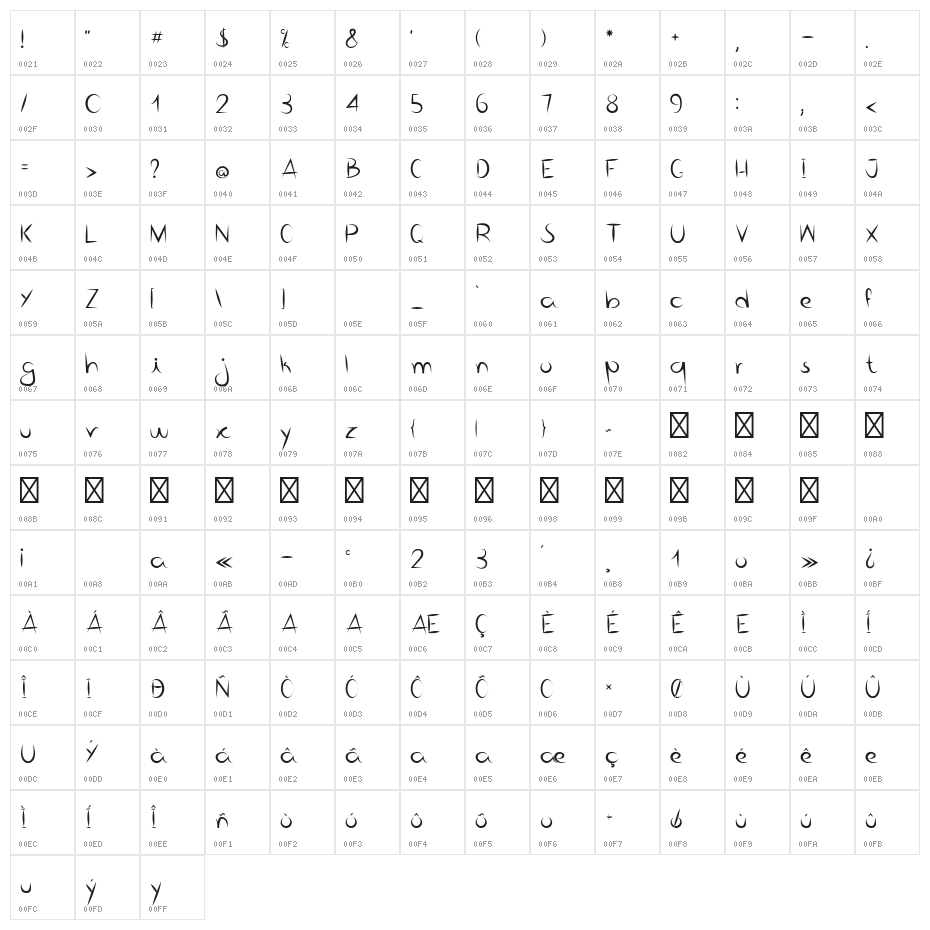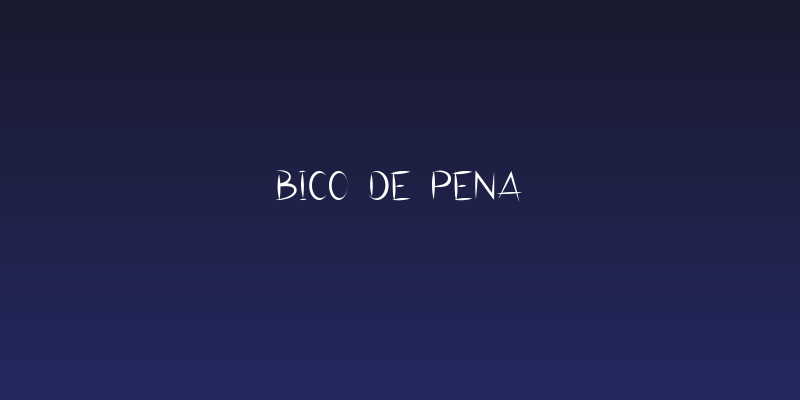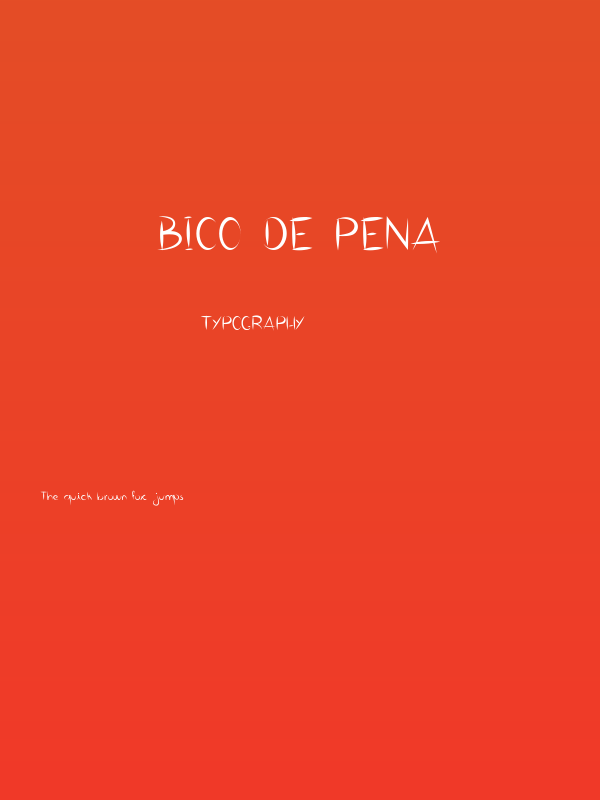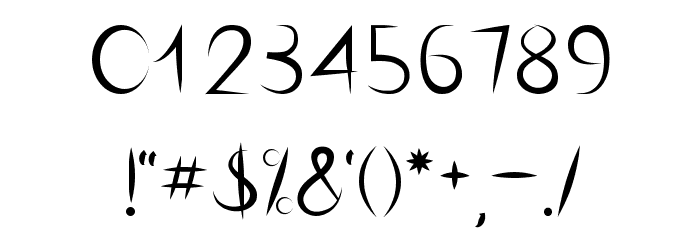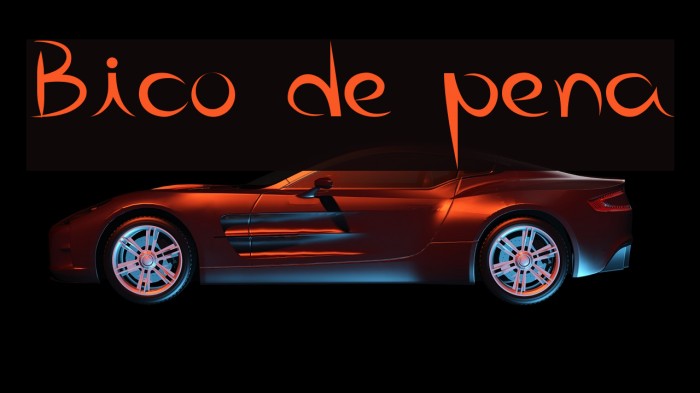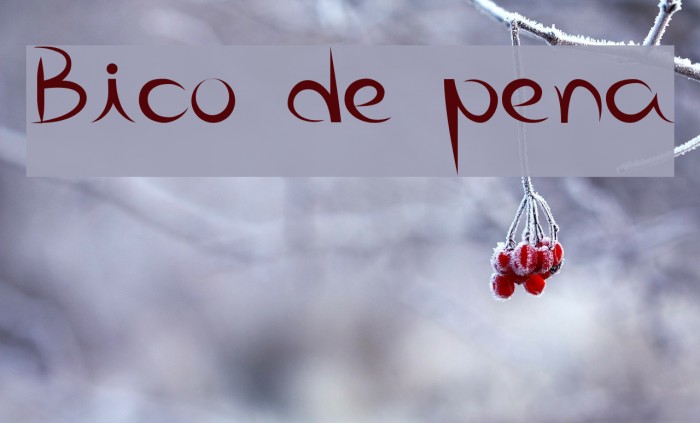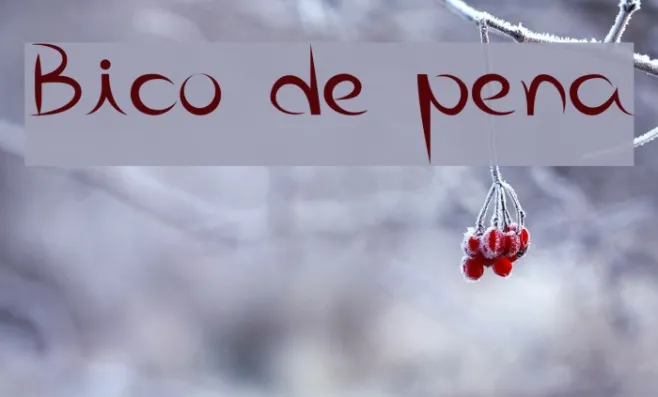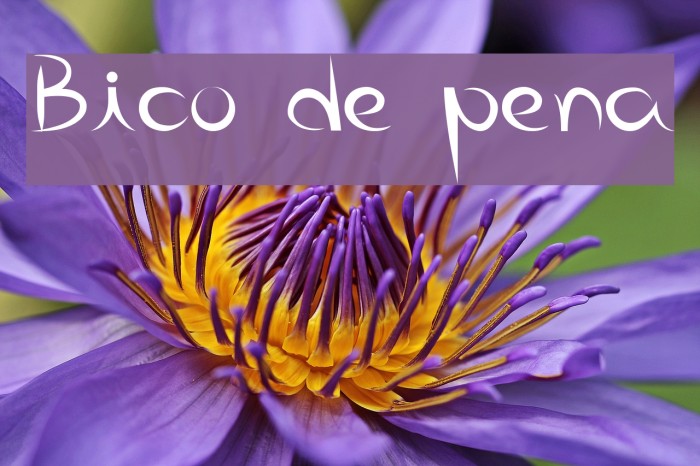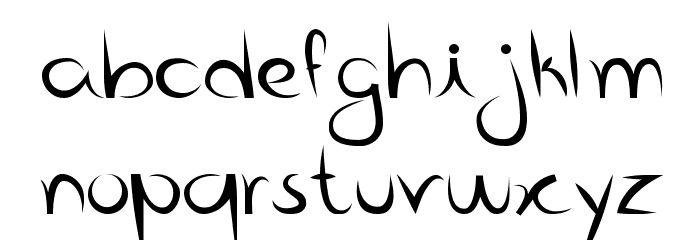
Bico de pena Font
Bico de pena Description
This font features a unique and artistic style with a playful and whimsical flair. The characters exhibit a hand-drawn quality, with varying stroke thicknesses that create a dynamic and lively appearance. The uppercase letters are bold and expressive, while the lowercase letters maintain a consistent flow with elegant curves and pointed ends. The numerals are distinct and maintain the same artistic style, ensuring readability. Special characters are creatively designed, adding to the font's overall charm. This font is perfect for projects that require a touch of creativity and individuality.
| Overall Style | Artistic, Playful, Whimsical |
| Proposed Projects | Ideal for creative projects such as children's books, artistic posters, branding for creative businesses, and unique invitations. |